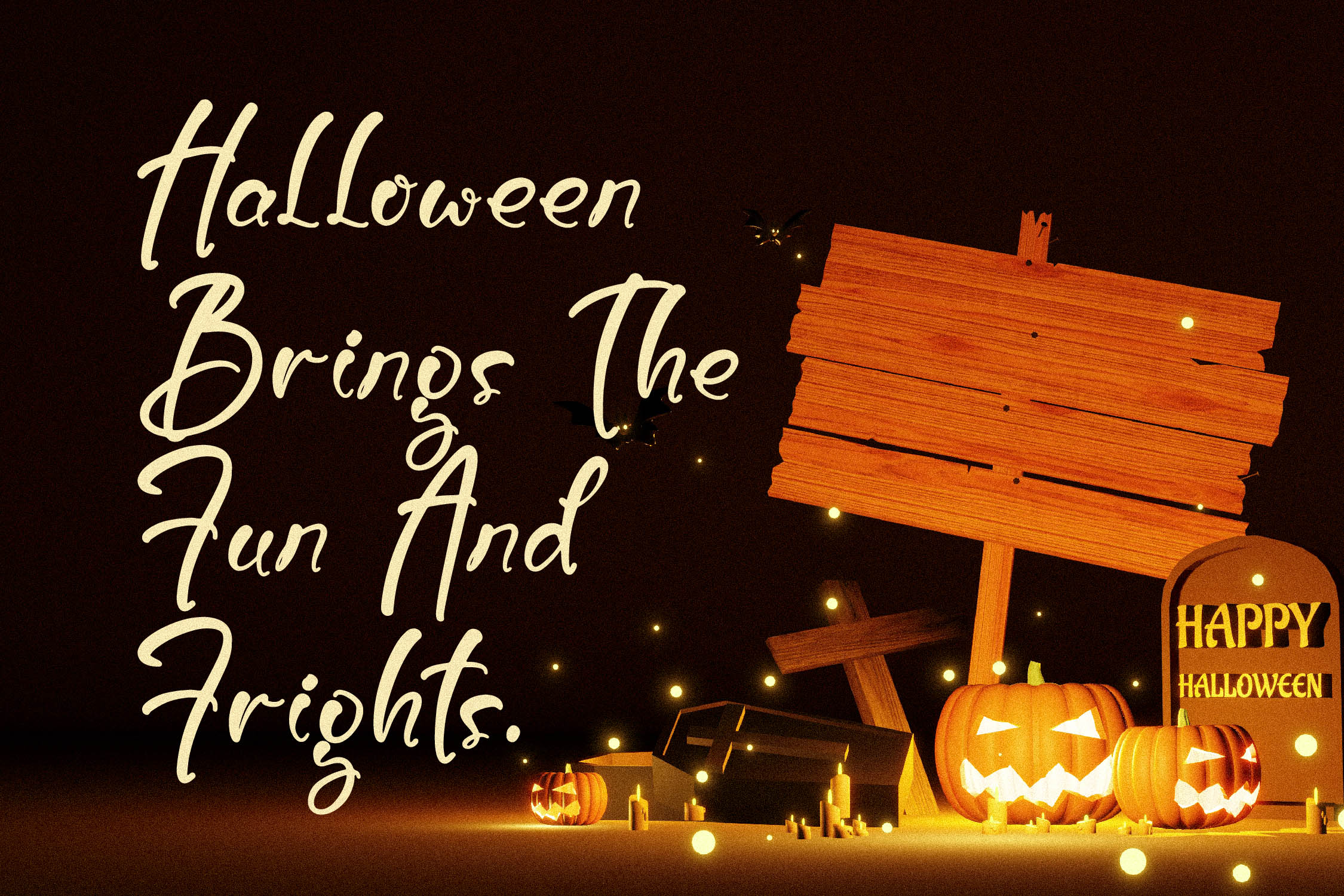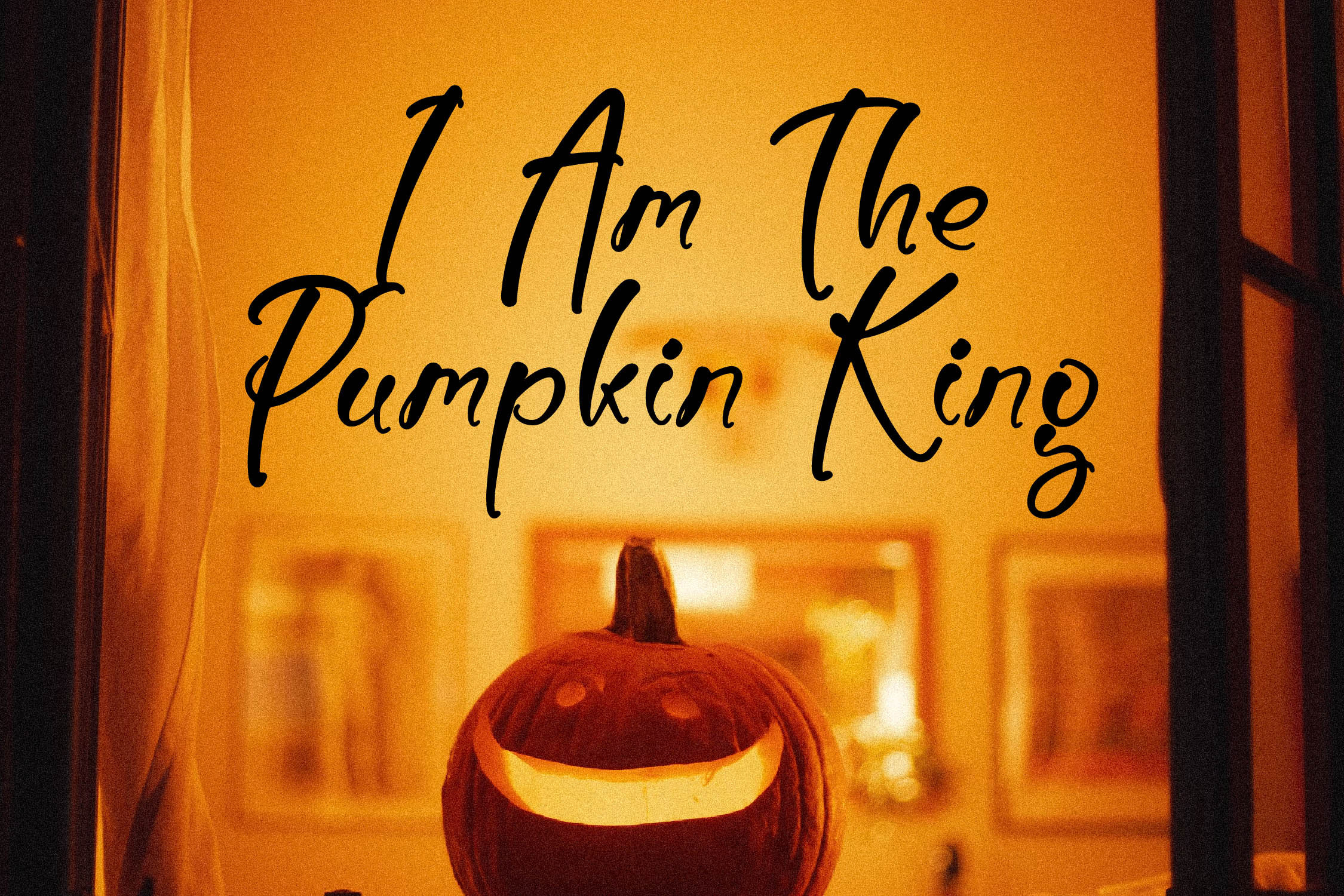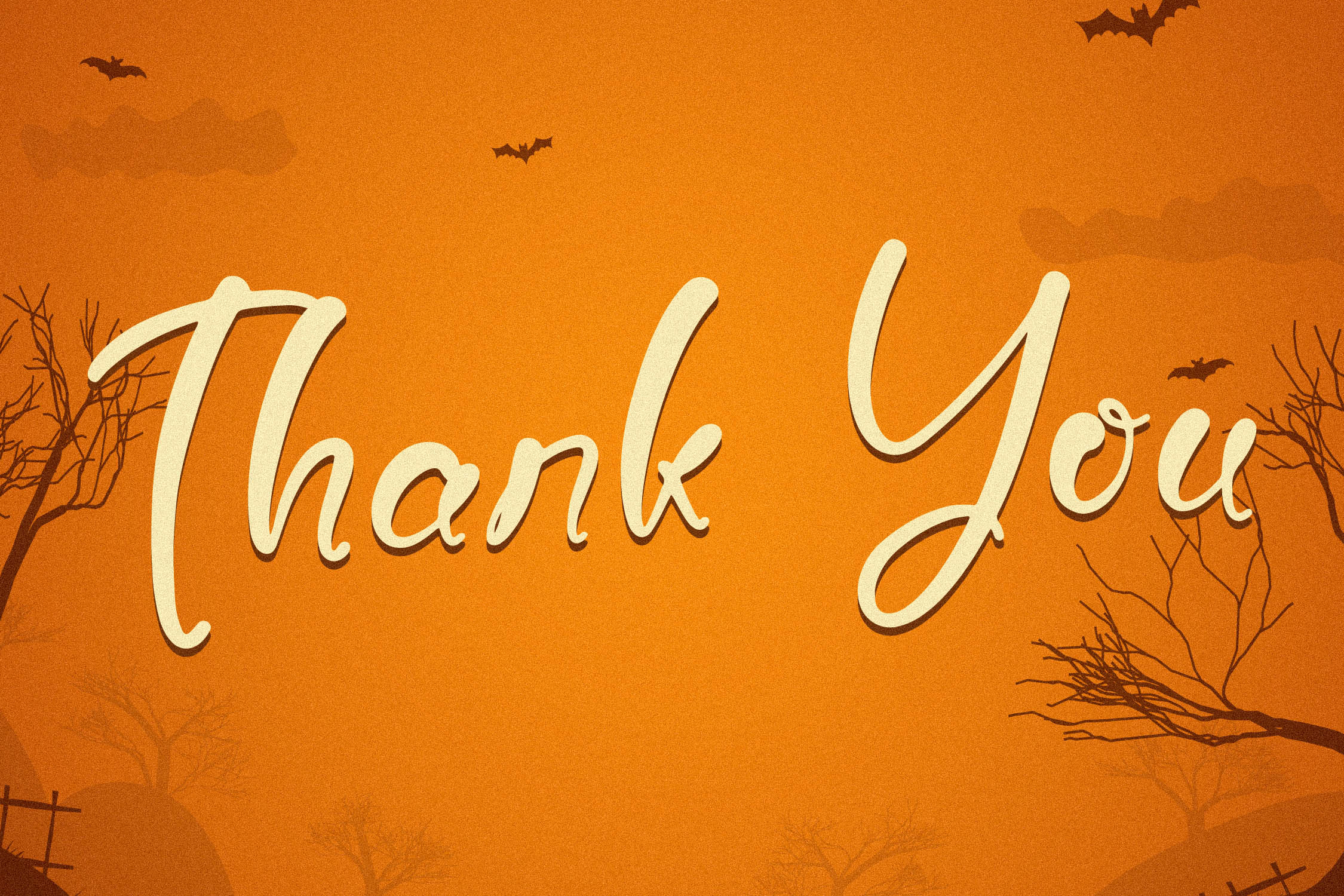
Burtons Ghoster Font
Burtons Ghoster Script Font is a Spooky Handwritten Font, suitable for any projects such as: logos, branding projects, homeware designs, product packaging, mugs, quotes, posters, shopping bags, t-shirts, book covers, name card, invitation cards, greeting cards, label, photography, watermark, special events, and all your other lovely projects that need a beautiful script taste.